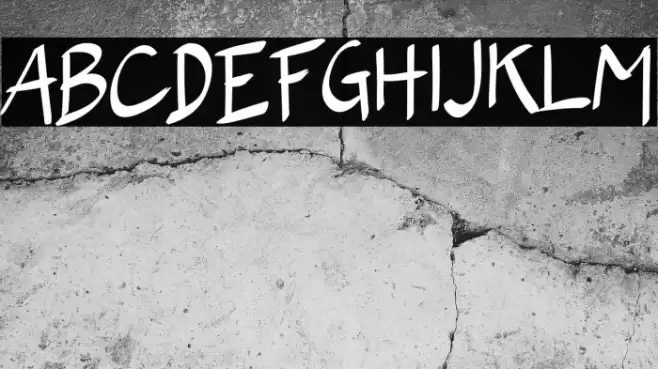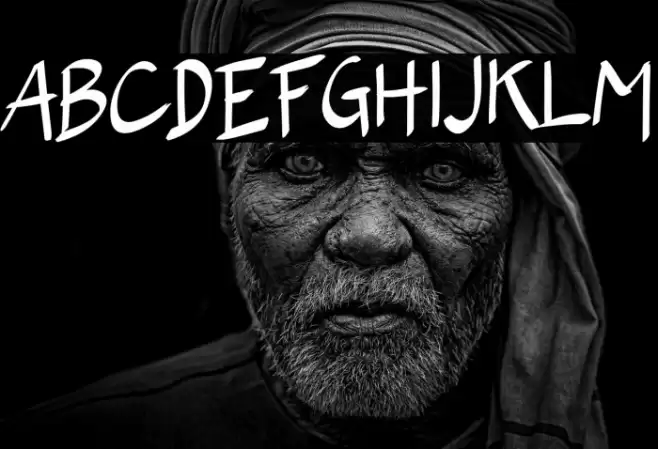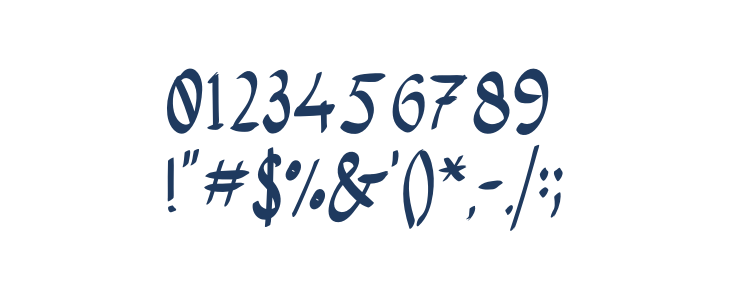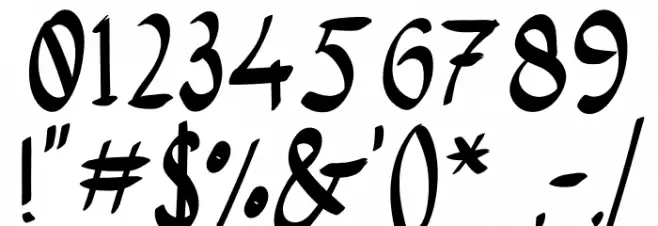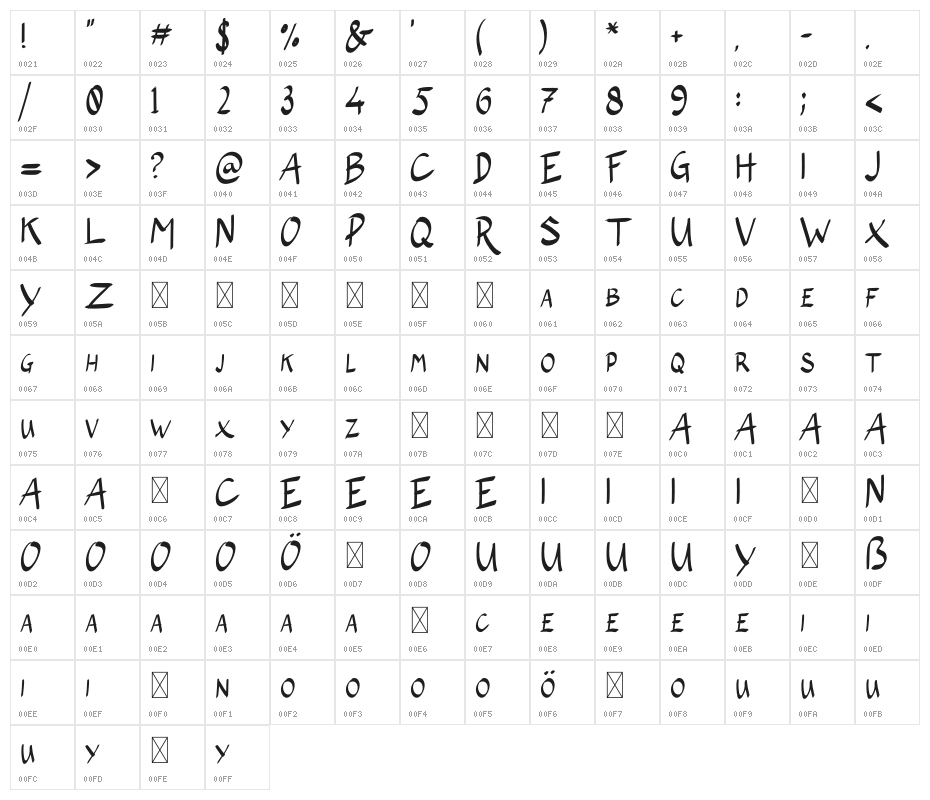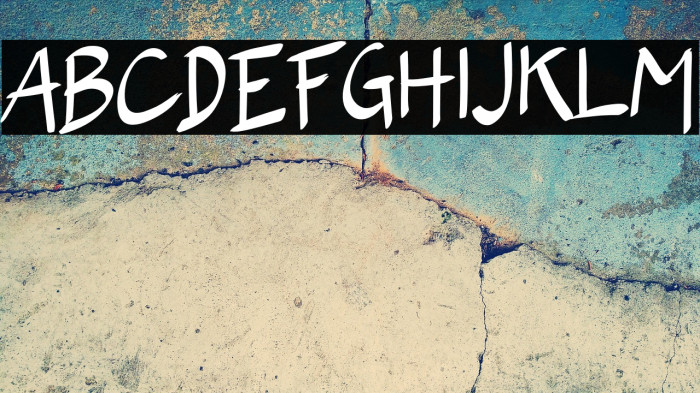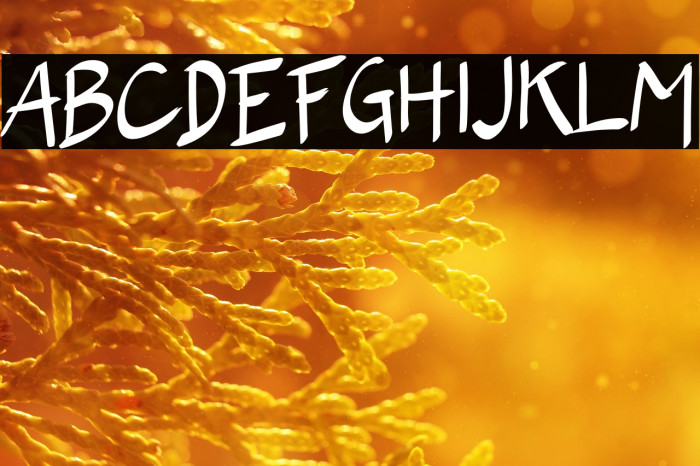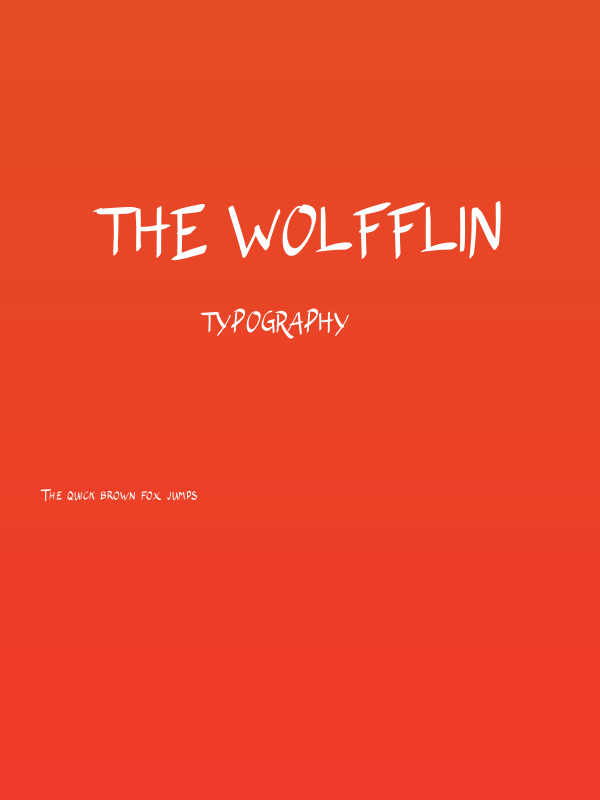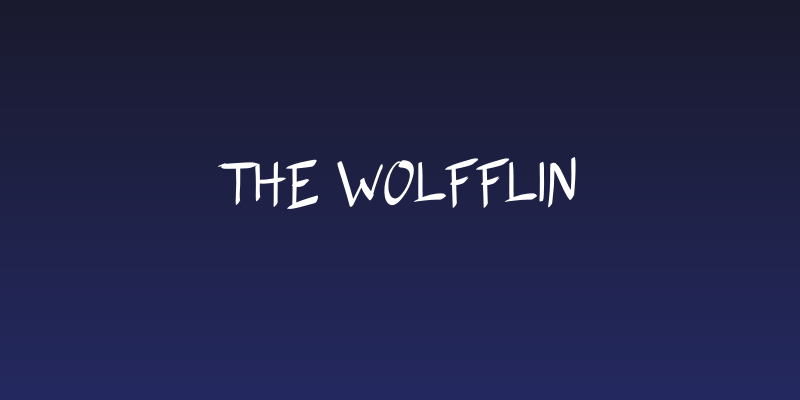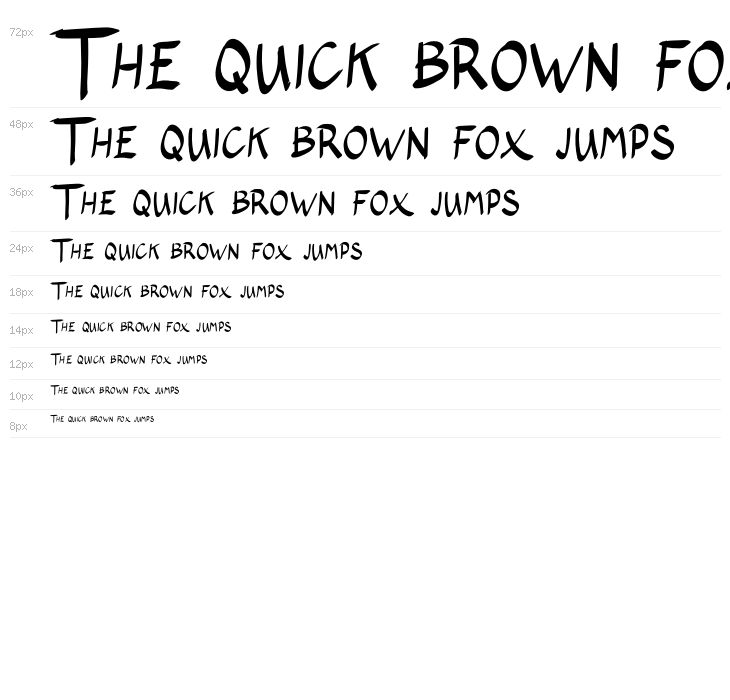
The Wolfflin Font
The Wolfflin Description
This font features a dynamic and energetic style, characterized by its bold and slightly irregular strokes that give it a handwritten feel. The uppercase letters are tall and slightly narrow, with a playful tilt that adds movement and personality. The lowercase letters maintain a consistent style, complementing the uppercase with their own unique flair. Numbers are bold and clear, ensuring readability. Special characters are designed with the same lively spirit, making them stand out. Overall, this font exudes a sense of creativity and spontaneity, perfect for projects that require a personal touch.
A bold, handwritten-style font with dynamic strokes and playful character from Uncategorized fonts.
- Font: The Wolfflin
- Proposed Projects: Ideal for creative projects such as posters, invitations, and branding materials that require a personal and artistic touch.